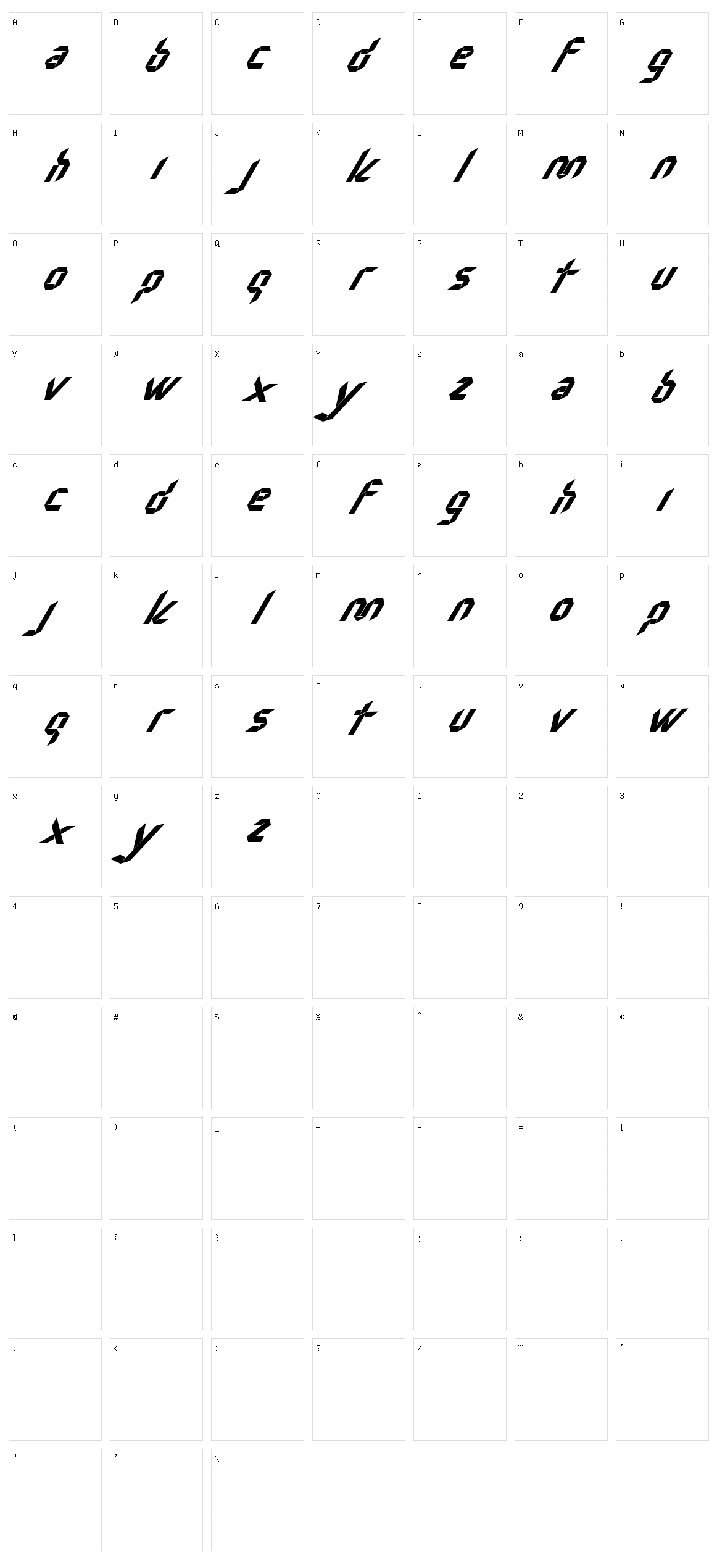
The free font Nudo is carefully designed by Mike Iracheta, showcasing a thoughtful balance of creativity and usability and belongs to the Techno font family. When you download the ZIP file, it contains only 13.03 KB of font files, making it lightweight and quick to download. Please review the license details below to understand permitted usage and distribution rights. If license information is not available, we recommend using this font for personal projects only or contacting the author directly for commercial usage permissions.